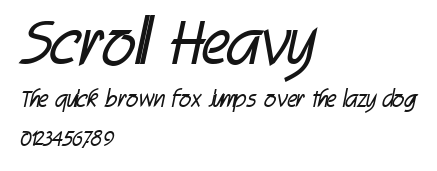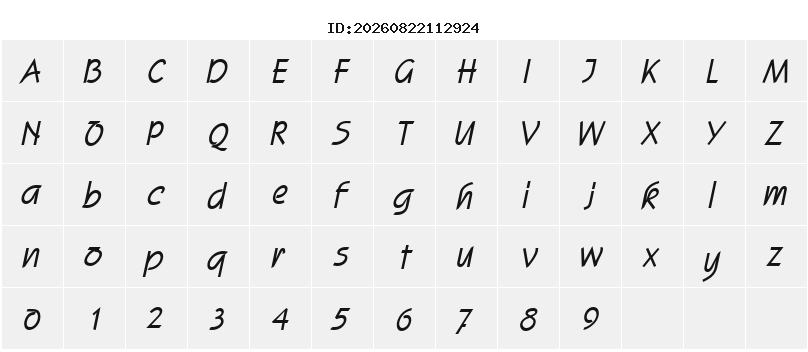
Scroll Heavy Preview
• Font Name: Scroll Heavy
• Font ID: Altsys Fontographer 4.1 Scroll Heavy Italic
• Full Font Name: Scroll Heavy Italic
• Version: Altsys Fontographer 4.1 2/1/95
• PostScript Name: ScrollHeavyItalic
• Character Count: 224
About Scroll Heavy.ttf
Scroll Heavy.ttf is a modern, elegant sans-serif font designed for ultimate readability and visual harmony. Perfect for branding, headlines, web design, and print materials.